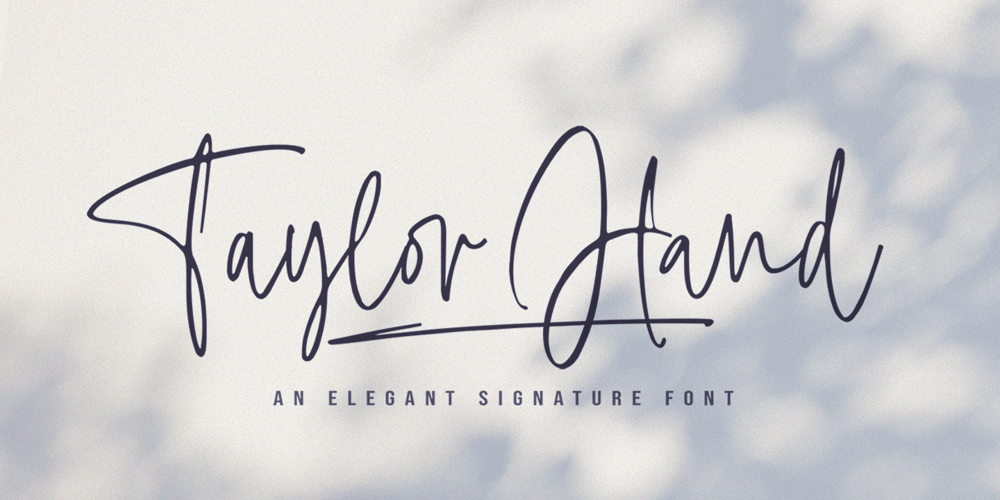
Taylor Hand Font Family was designed by Måns Grebäck and published by Mans Greback. Taylor Hand contains 3 styles and family package options. Taylor Hand is an elegant signature font. Drawn by hand and created to be a typeface for chic and modern work in a classy setting.Use { } [ ] < > anywhere in a word where you want a swash. Example: Tay[lorThe font comes in two styles, Upright and Italic, and also includes a Swash style for decorative additions to your lettering. It is completed with a full alternate alphabet and a big set of ligatures, which together give the handwriting genuine dynamics and a natural flow.It has extensive lingual support, covering all European Latin scripts.The font contains all characters you’ll ever need, including all punctuation and numbers.